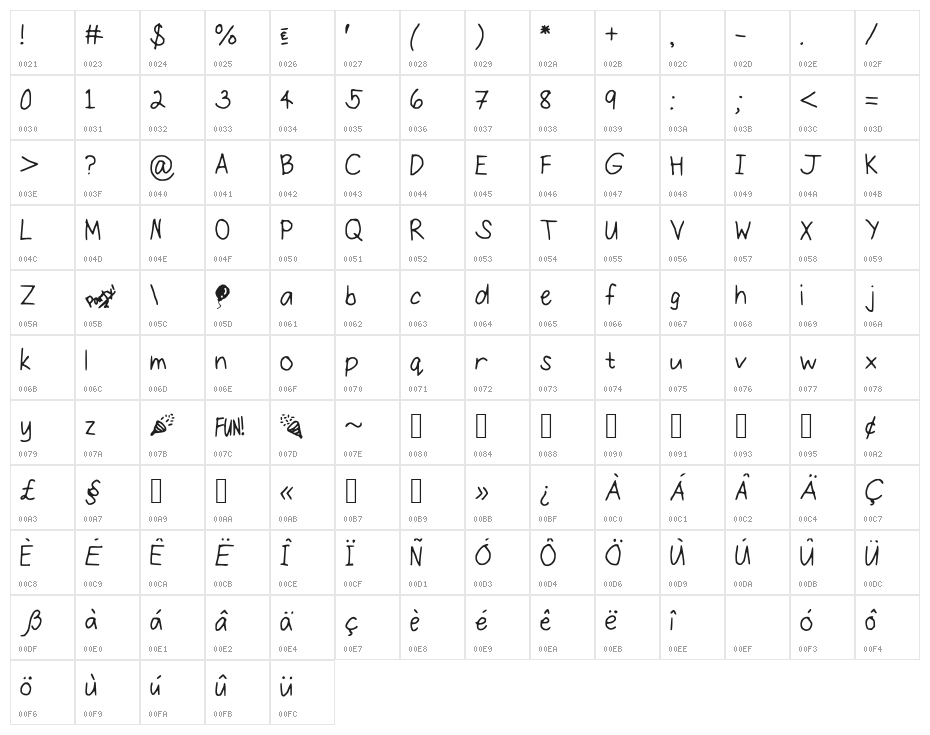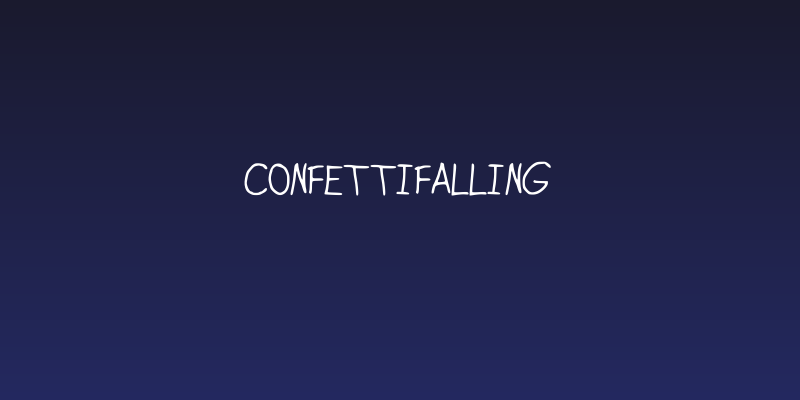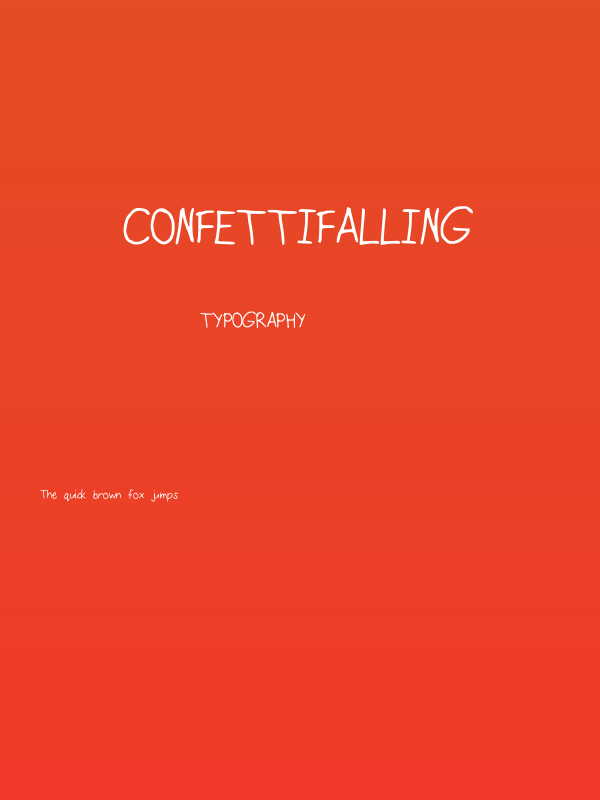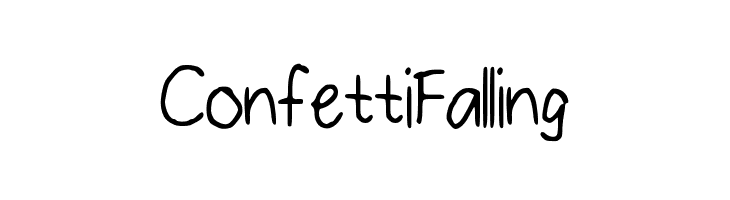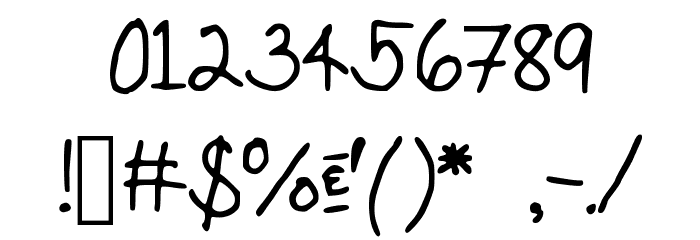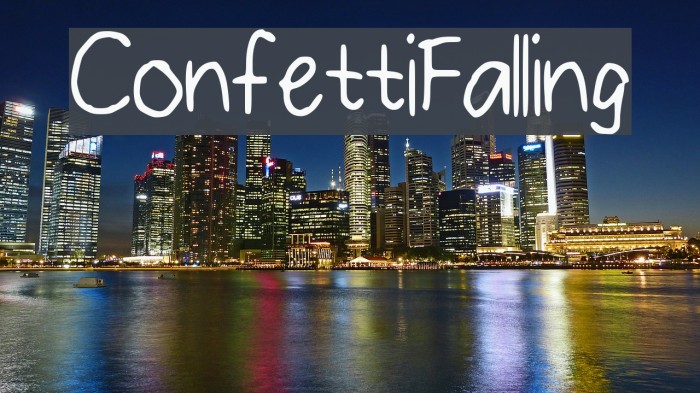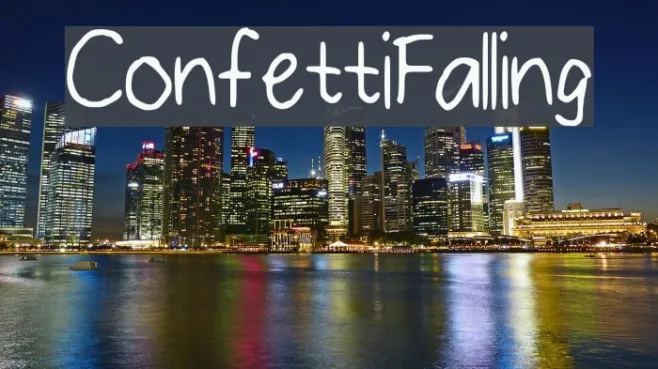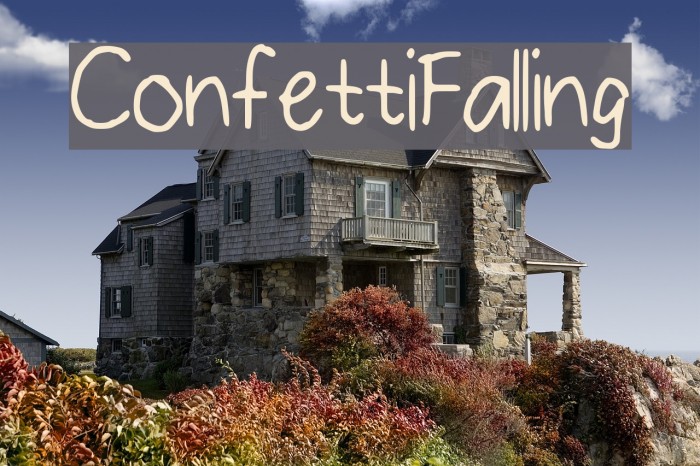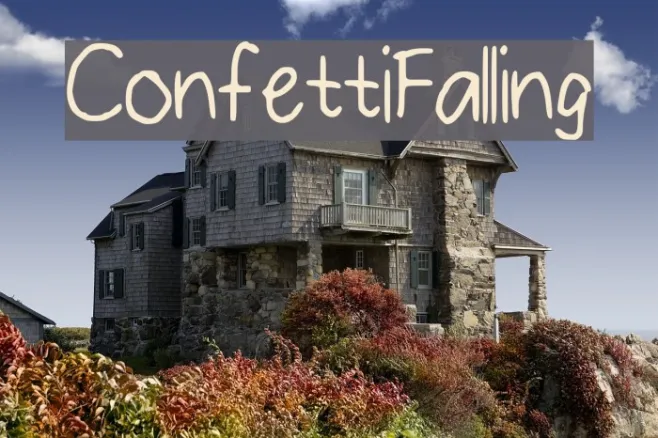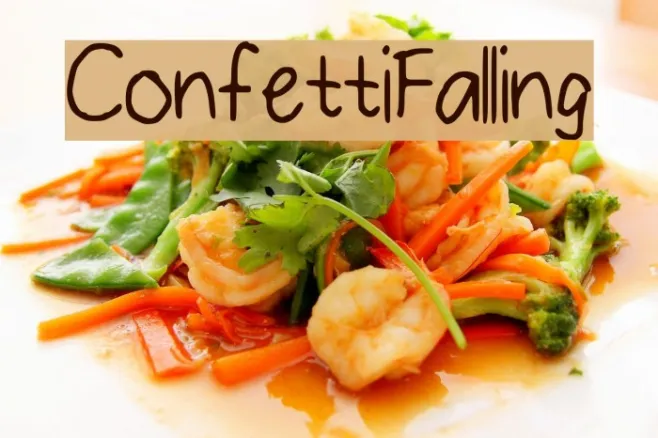
ConfettiFalling Font
ConfettiFalling Description
This playful and casual font exudes a handwritten charm, characterized by its uneven strokes and slightly irregular letterforms. The uppercase and lowercase letters maintain a consistent style, with rounded edges and a friendly appearance. The numbers and special characters follow the same informal aesthetic, making the font suitable for projects that require a personal touch. Its legibility is maintained despite the informal style, making it versatile for various applications. The font's overall appearance is approachable and lively, perfect for conveying a sense of fun and creativity.
| Proposed Projects | Ideal for greeting cards, children's books, casual invitations, and playful branding. |